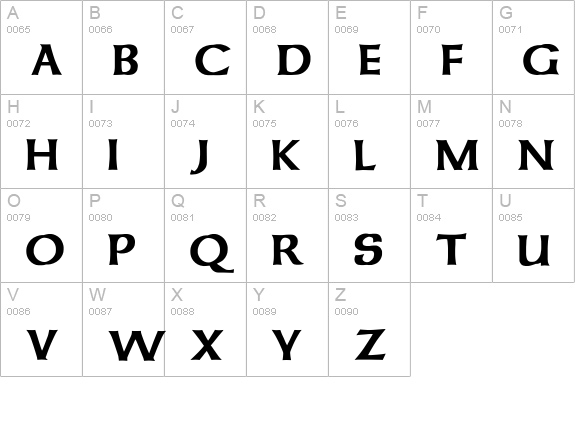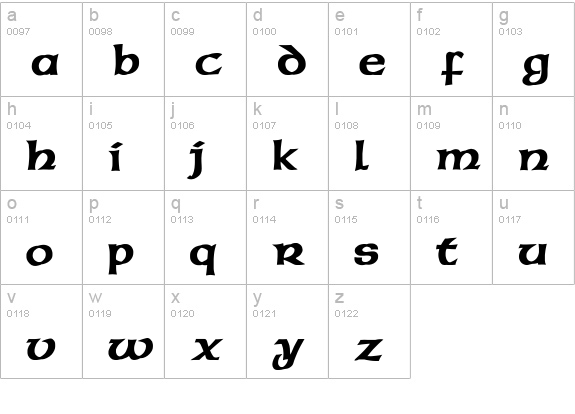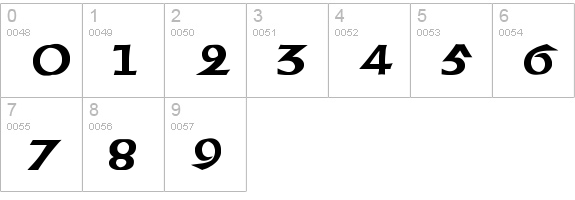
AmericanUncialBold Font Details
AmericanUncialBold is a classic and elegant font that exudes a sense of sophistication and tradition. With its bold and distinctive letterforms, this timeless typeface is perfect for creating eye-catching titles and headings. The unique style of AmericanUncialBold adds a touch of old-world charm to any design project. What's even better is that AmericanUncialBold is available for free download at FontsMarket.com. Whether you're working on print materials, digital designs, or anything in between, this versatile font is sure to make a statement. Embrace the beauty and versatility of AmericanUncialBold in your next project and watch as it brings your words to life with its timeless appeal.